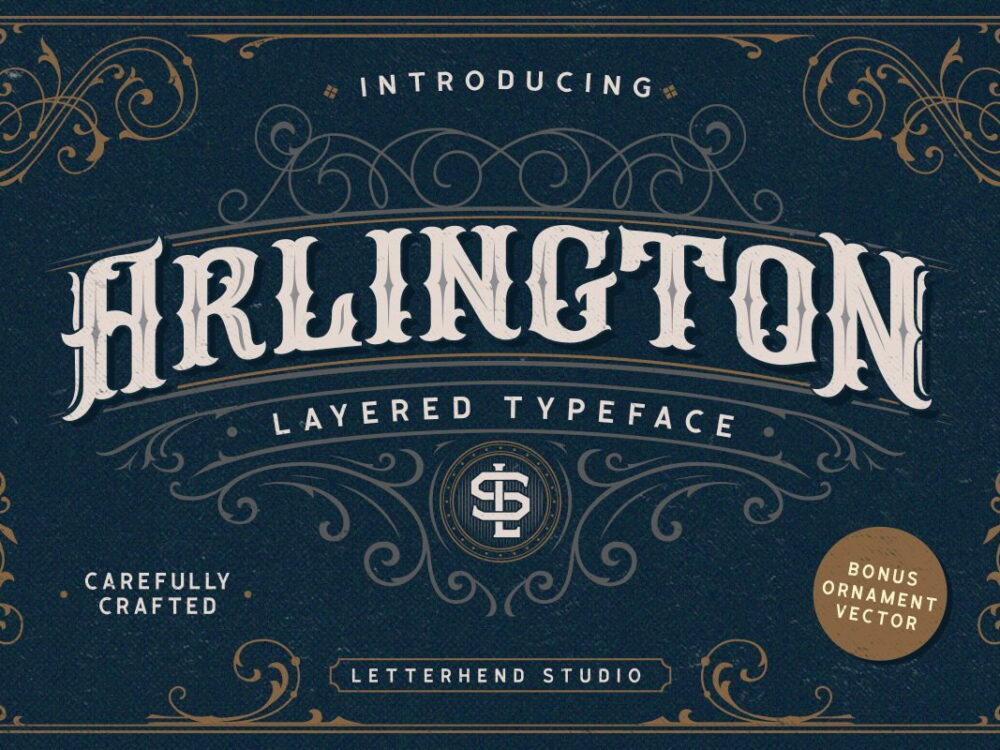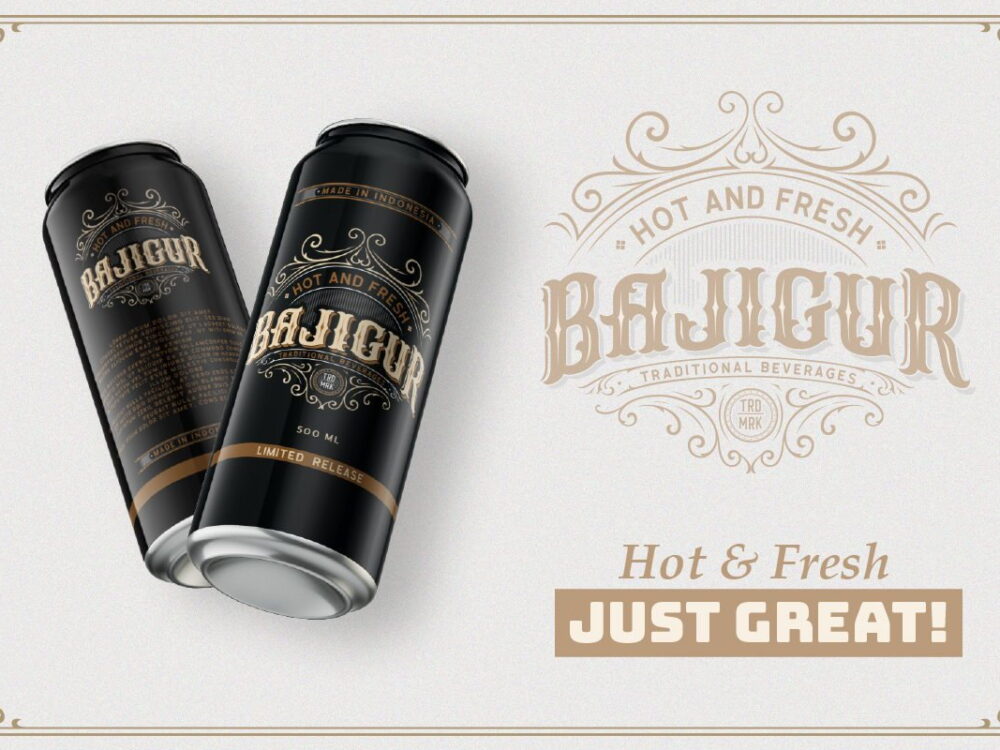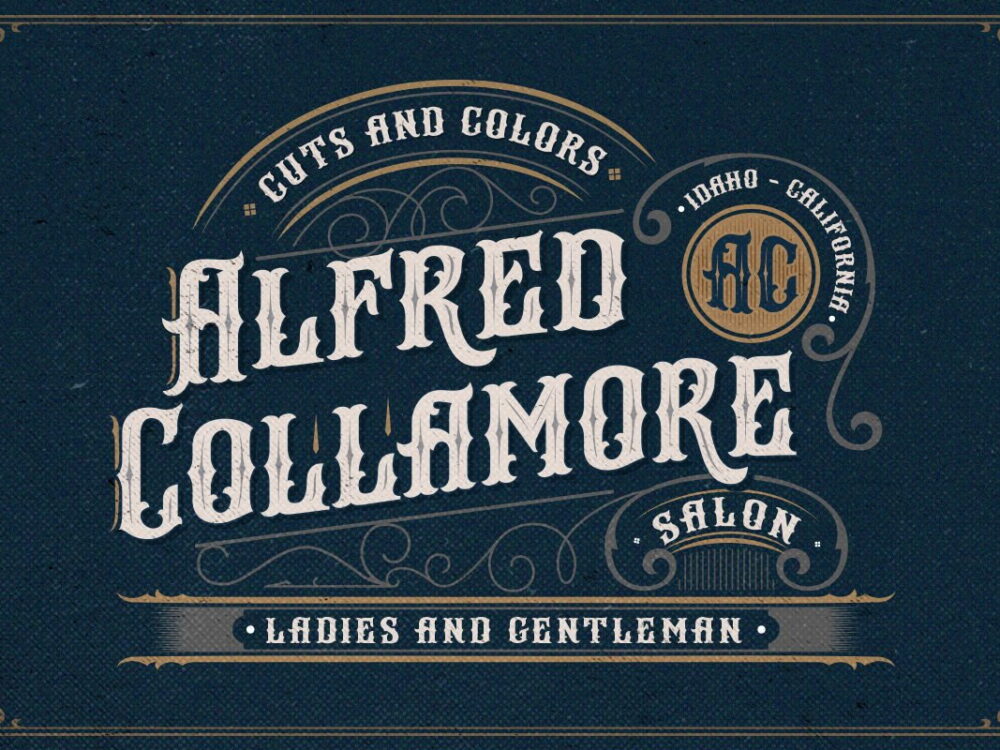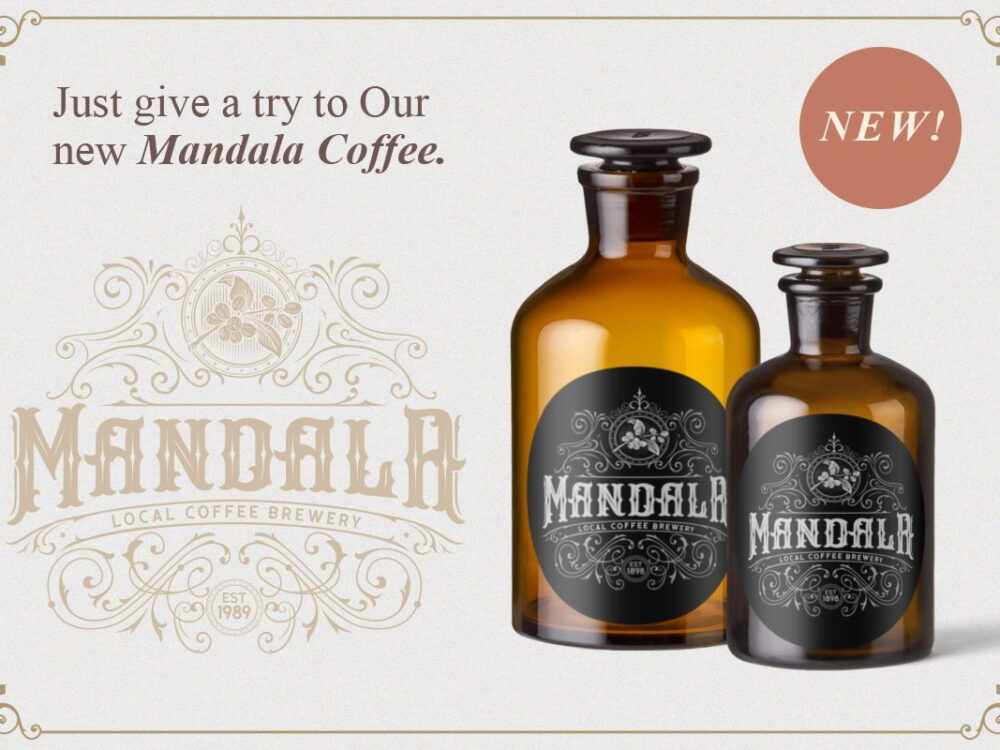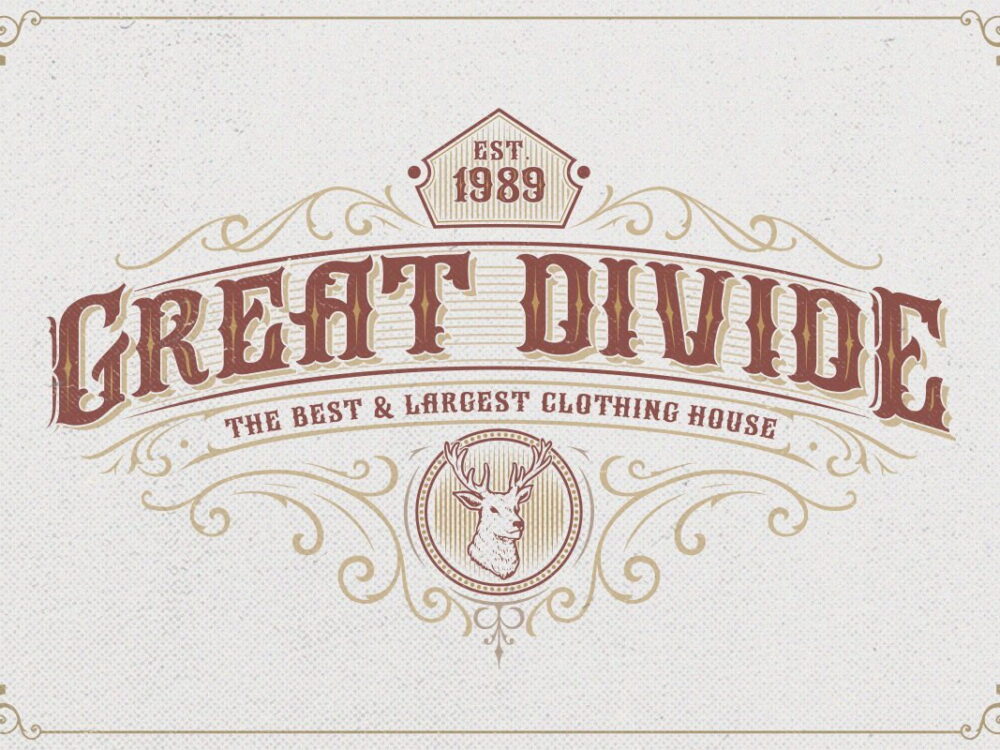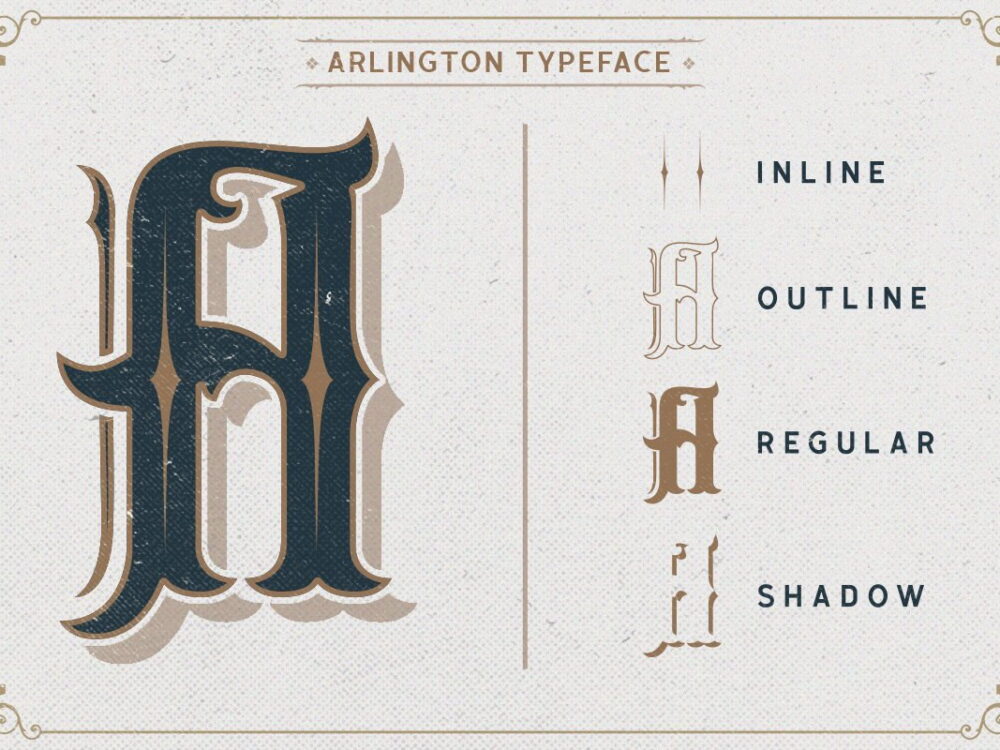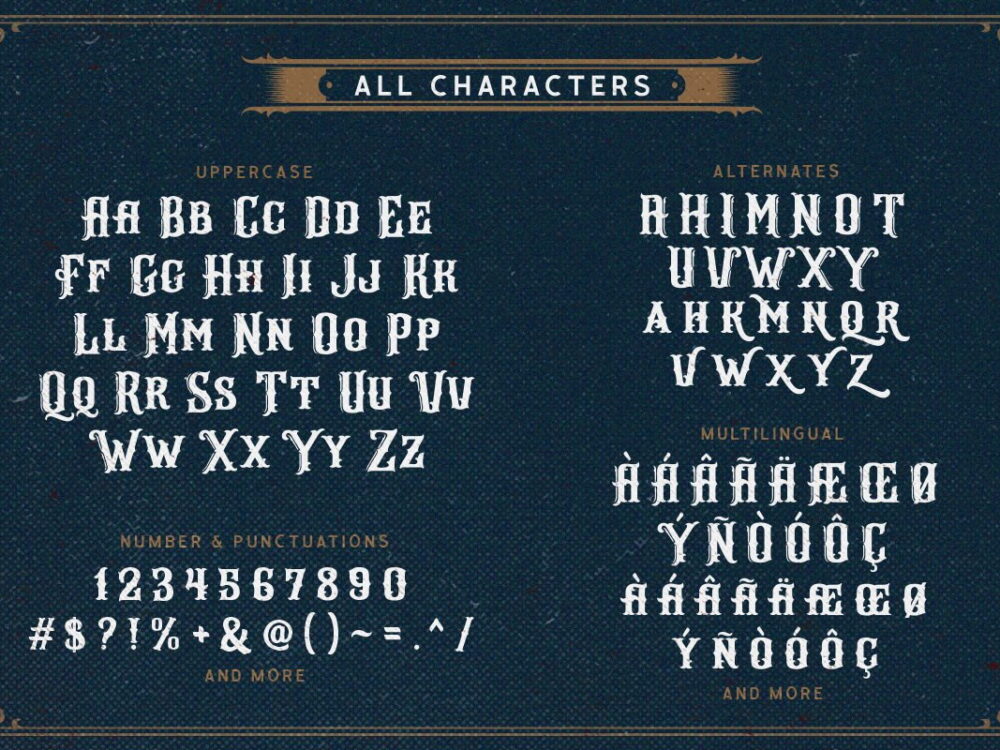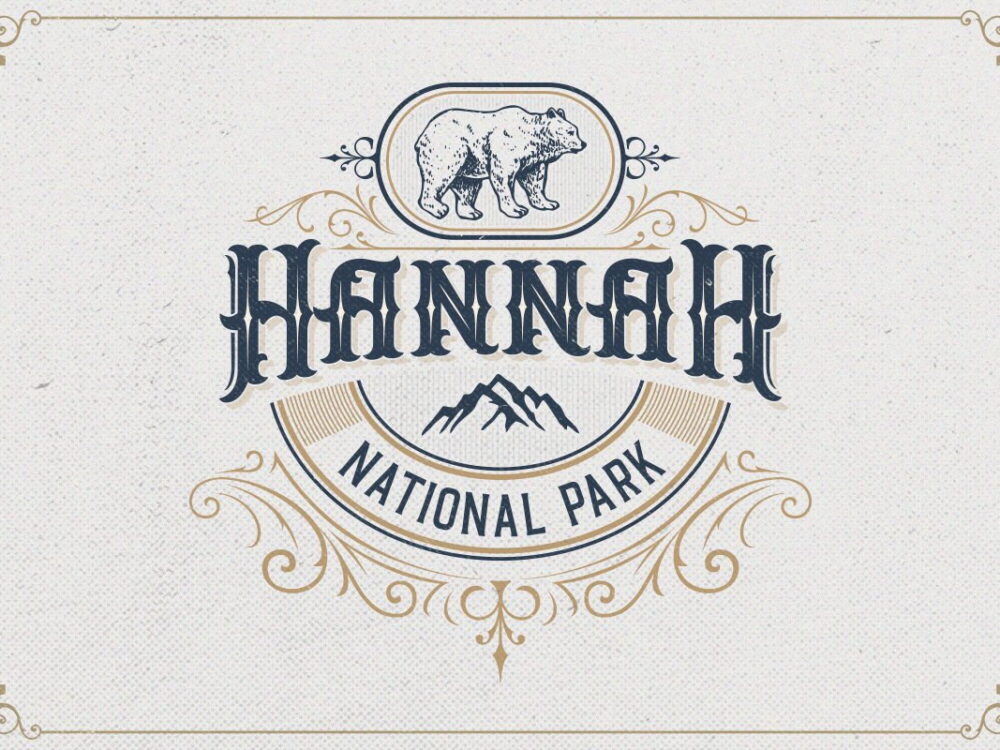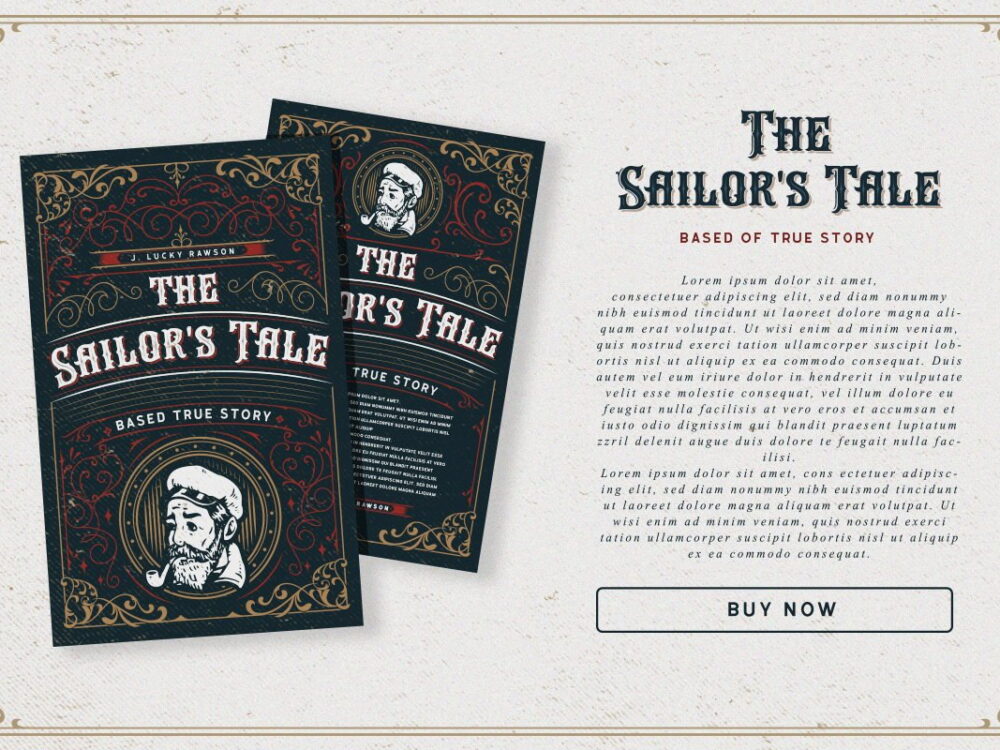
Arlington Layered Font
Arlington Layered Font is a beautiful multi-slice vintage typeface that contains decorative ornaments and is perfect for poster designs, advertisements, and clothing prints in a retro style. The font is multilingual and consists of uppercase, lowercase letters, punctuation marks, symbols, numbers, and an alternative stylistic set. Please purchase the full version of the font for commercial use at the author shop.